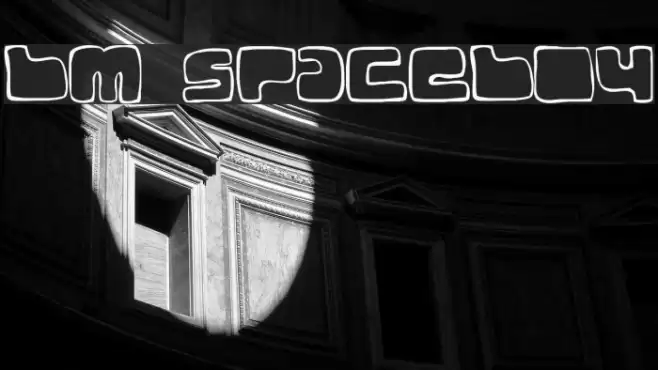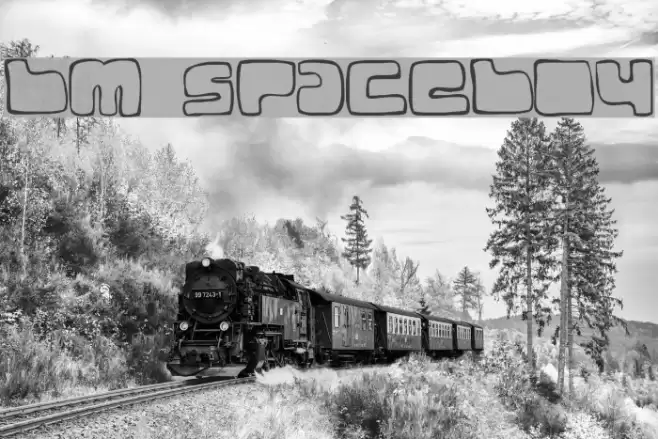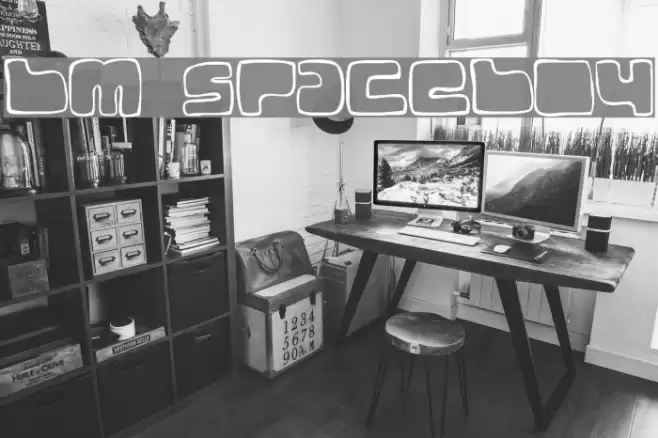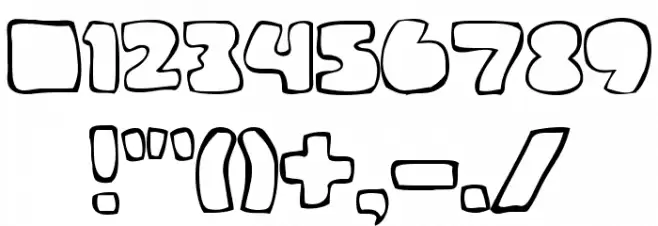
BM Spaceboy Font
BM Spaceboy Description
This font features a playful and bold design with rounded, bubble-like characters. Each letter and number is outlined, giving it a three-dimensional appearance. The style is consistent across uppercase and lowercase letters, as well as numbers and special characters. The font has a unique, futuristic vibe, reminiscent of retro sci-fi aesthetics. Its thick outlines and rounded edges make it highly legible and eye-catching, suitable for creative and fun projects.
A playful, bold font with rounded, bubble-like characters and a retro sci-fi vibe from Uncategorized fonts.
- Proposed Projects: Ideal for children's books, comic strips, video game titles, and playful branding.
- Overall Style: Futuristic, Playful